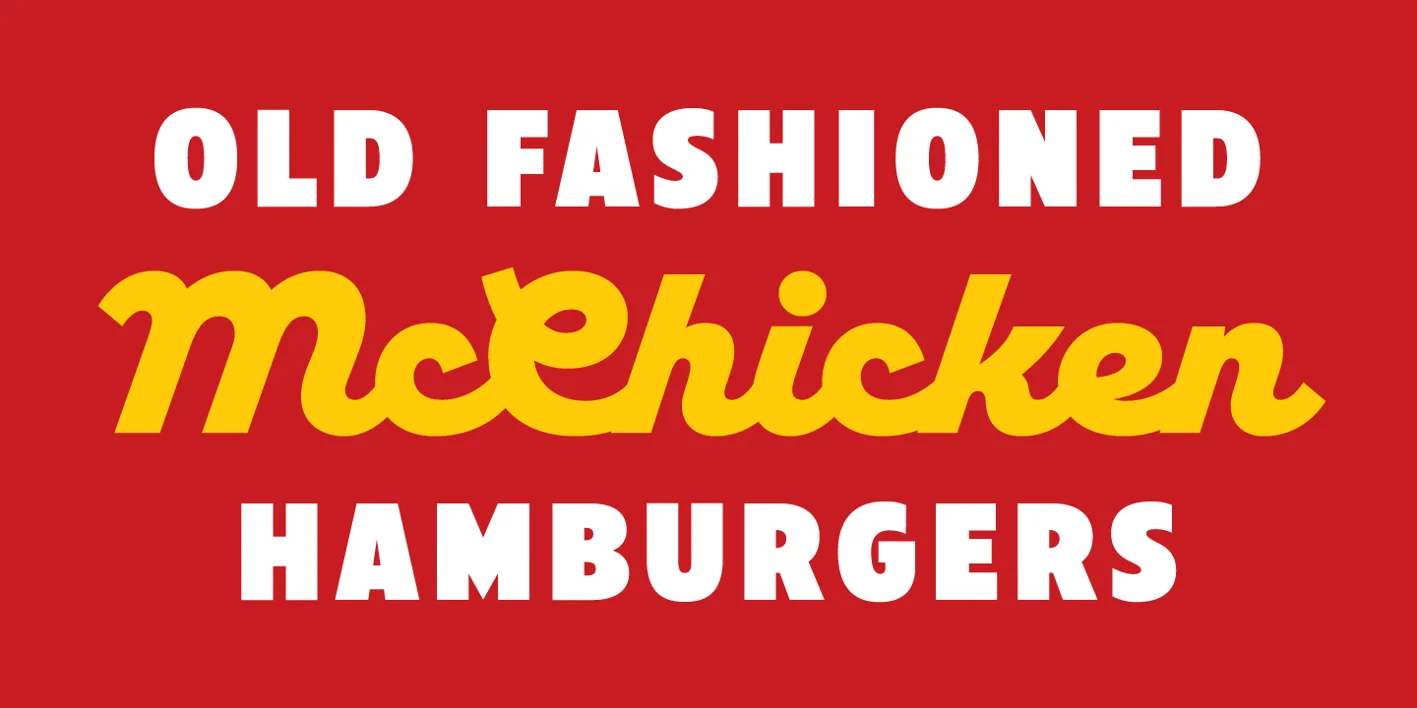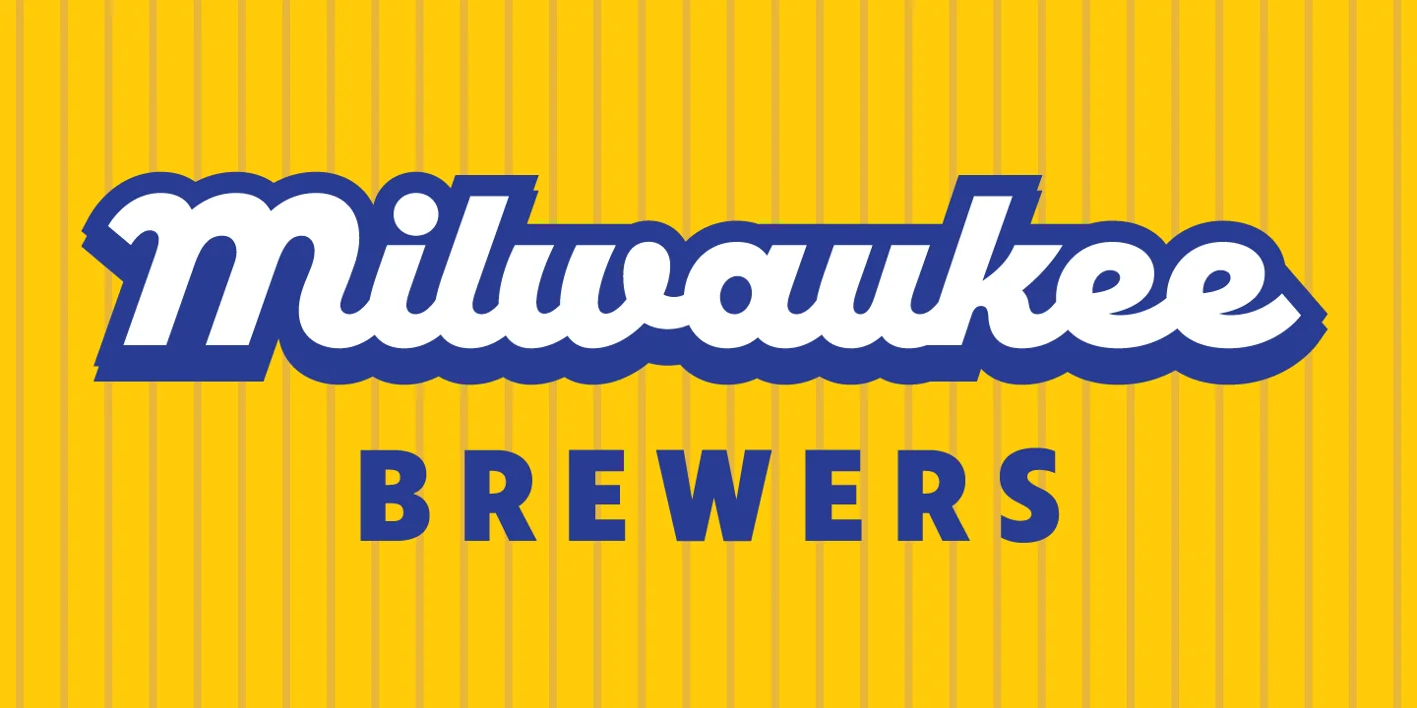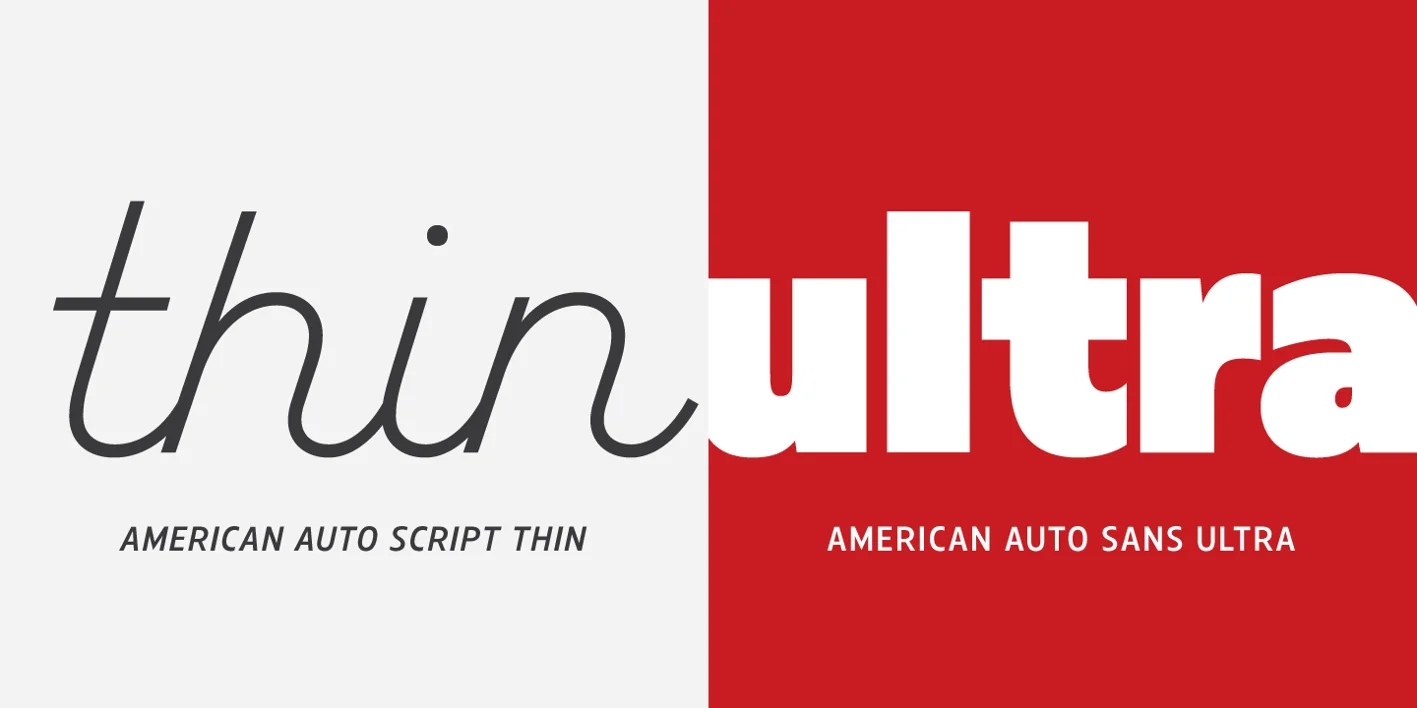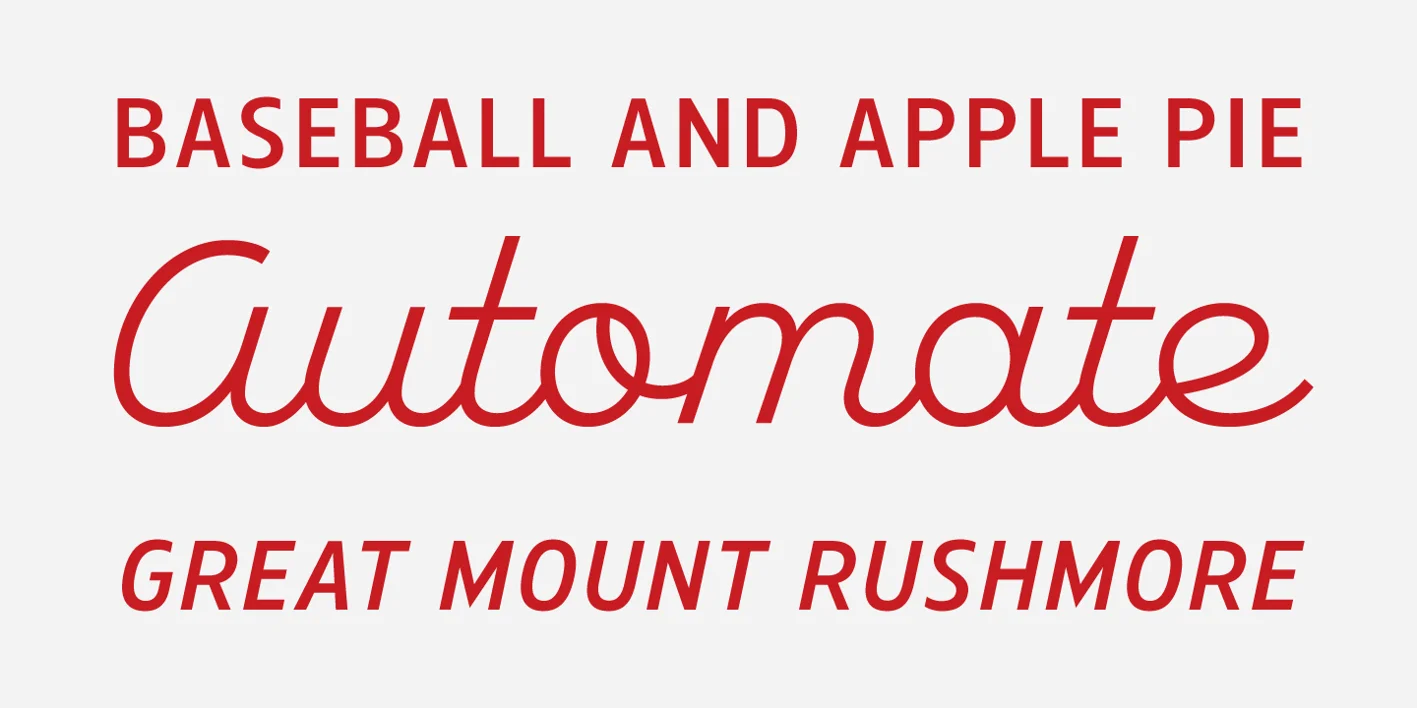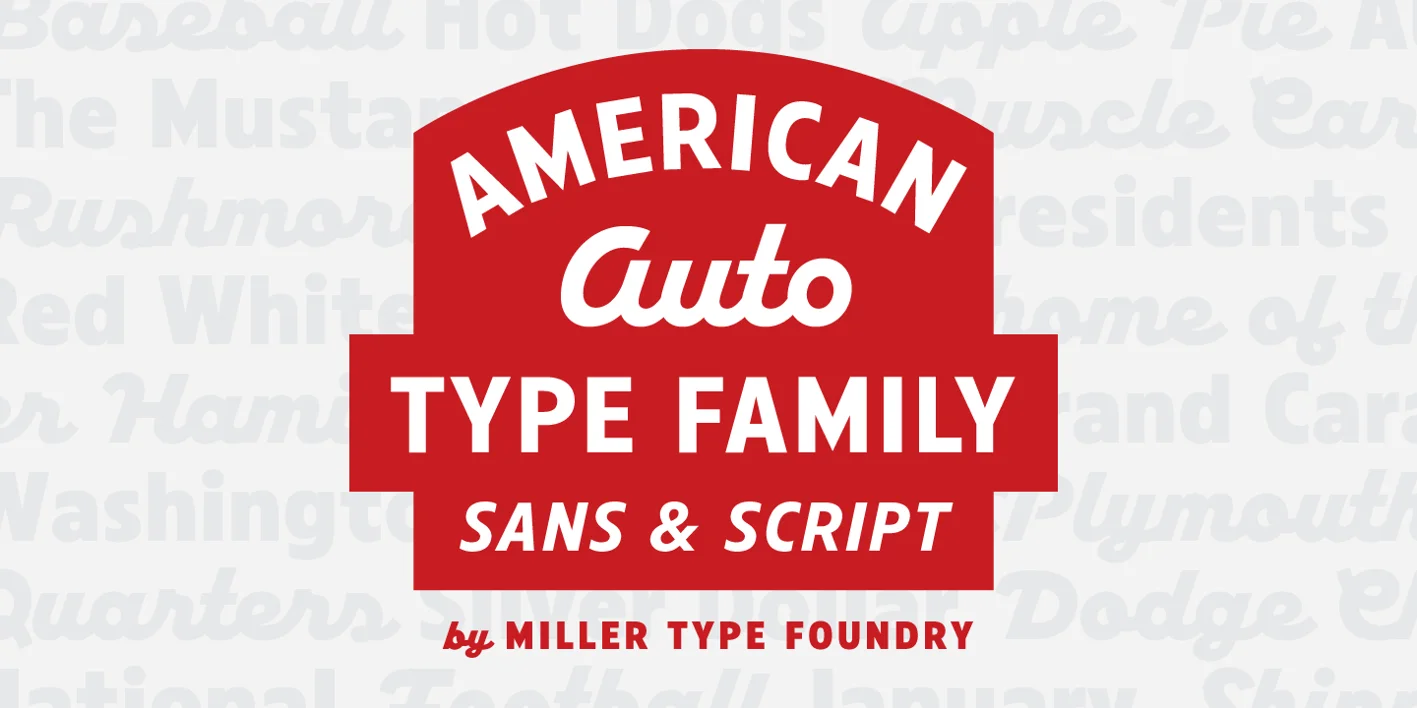
American Auto Font
When a design brief calls for both consistent type colour across continuous text and immediate visual impact, type choices matter — American Auto answers that brief. The typeface brings a versatile sensibility to a broad range of creative disciplines, with a confident voice that adapts to diverse briefs that holds up whether the work is print-first or screen-first.
In practice, American Auto proves particularly effective for environmental graphics, brand identity systems, advertising campaigns, signage systems, editorial layouts. Designers reaching for it find that the type decisions feel resolved rather than laboured — a useful quality when client timelines are tight.
The range of applications extends to annual reports, web design, logo design, social media graphics. That breadth is deliberate: the proportions and spacing were stress-tested across a wide range of mock briefs before the typeface was finalised.
Spacing and kerning pairs have been individually reviewed for the most common letter combinations in English and major European languages. The result is even type colour across continuous text, with no awkward gaps or collisions between adjacent characters.
Graphic designers working on identity systems find American Auto a reliable choice for projects that demand both personality and restraint. The design avoids the self-conscious quirkiness that dates quickly, settling instead for considered distinctiveness that holds up over time.